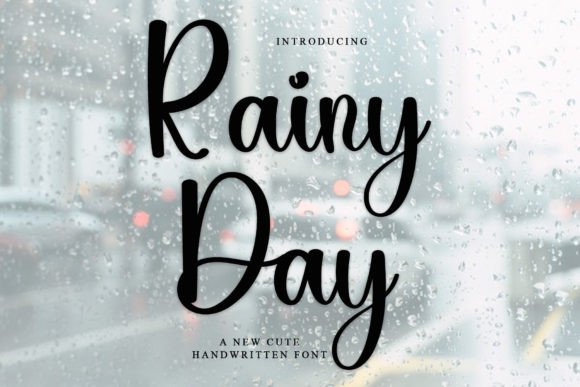
Immerse yourself in the captivating aura of Rainy Day Font, an exquisite script typeface designed to evoke the magic of a picturesque autumn day. PiPi Creative, the artistic mind behind this masterpiece, has crafted a font that encapsulates the essence of the season with its graceful letterforms and harmonious earthy tones.
As you embrace Rainy Day Font, you'll discover a world of design possibilities that exude coziness and nostalgia. Whether you're crafting autumn-themed projects, sending heartfelt seasonal greetings, or creating nature-inspired branding, this font will add a touch of whimsy and enchantment to your creations.
Imagine the impact of your designs adorned with Rainy Day Font's elegant curves and delicate swashes. Your words will dance across the page, carrying a message of warmth and heartfelt emotions. The font's organic and inviting nature creates a welcoming atmosphere that draws your audience into your creative vision.
With Rainy Day Font, you'll unlock a treasure trove of design opportunities. Its versatility extends from eye-catching logos and enchanting invitations to heartfelt greeting cards and captivating social media posts. Each character carries the essence of the season, making your designs resonate with the beauty of falling leaves and the crisp autumn air.